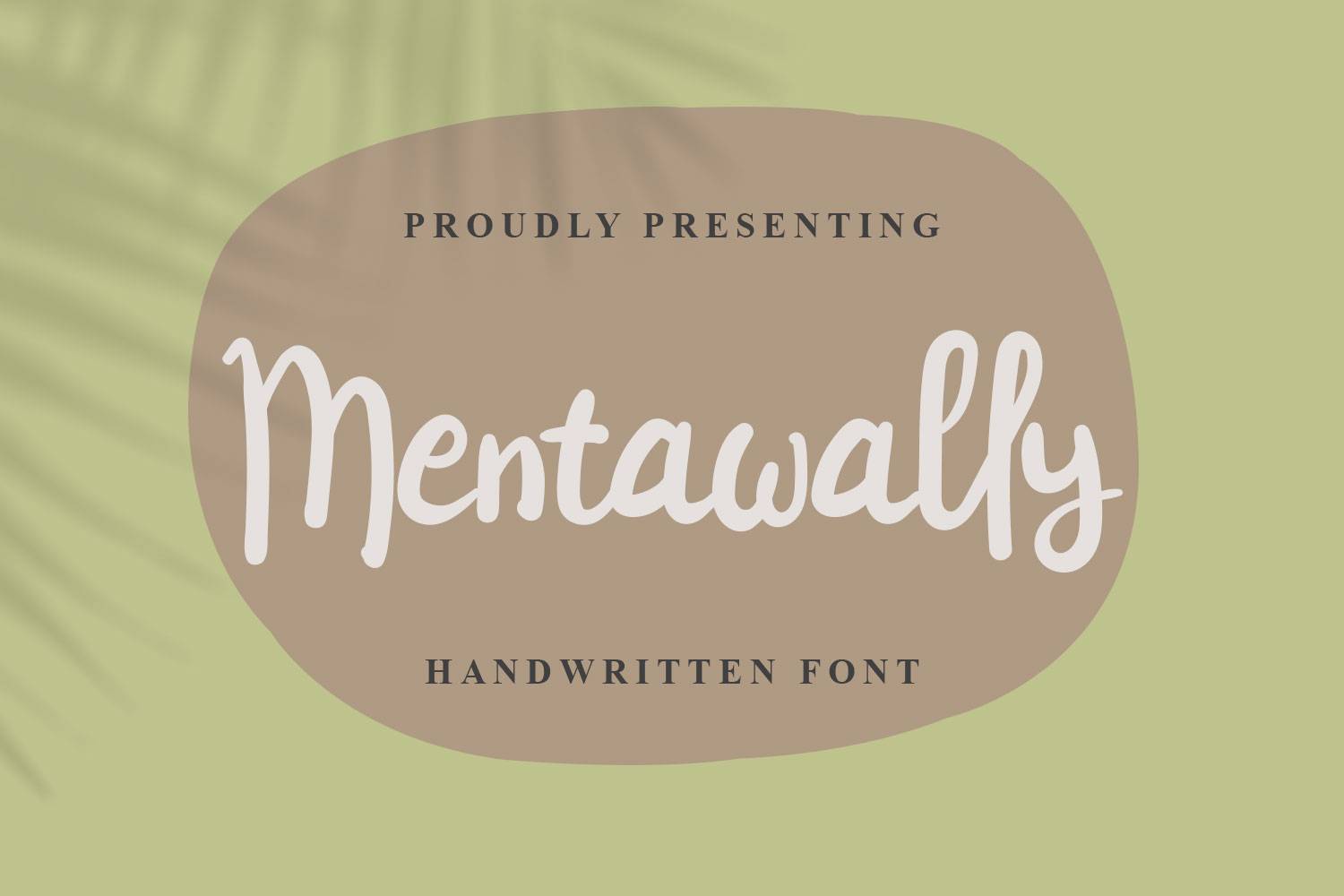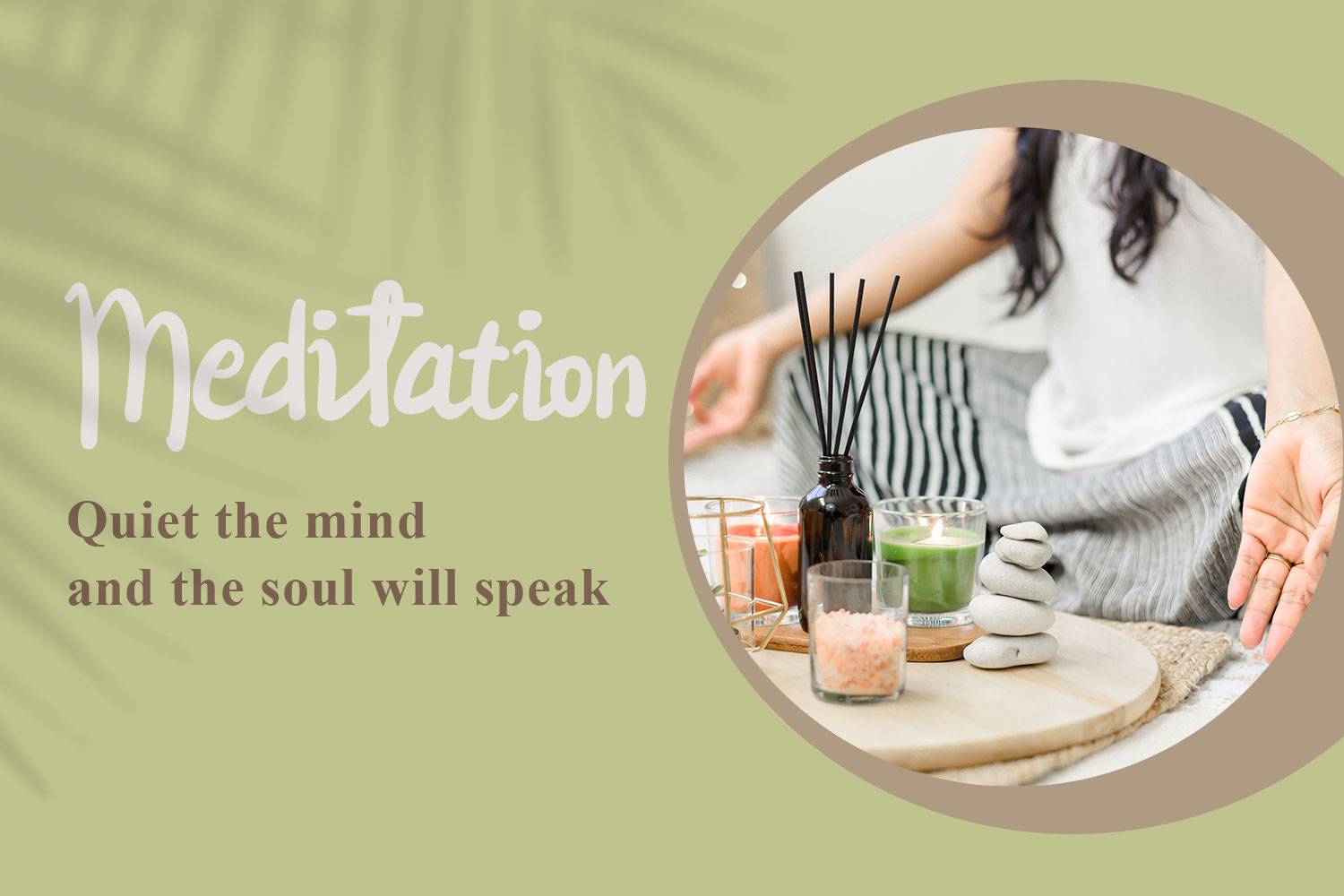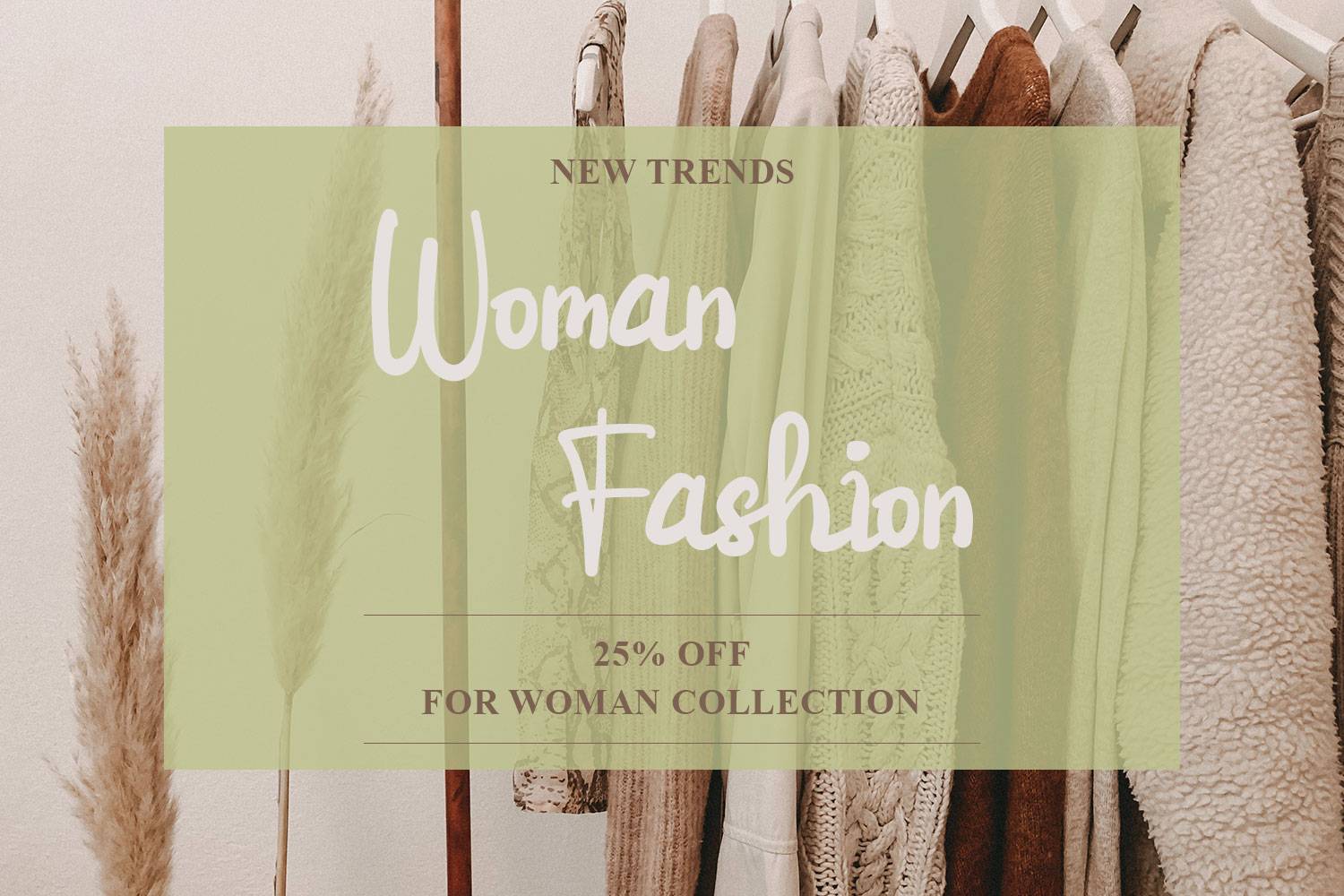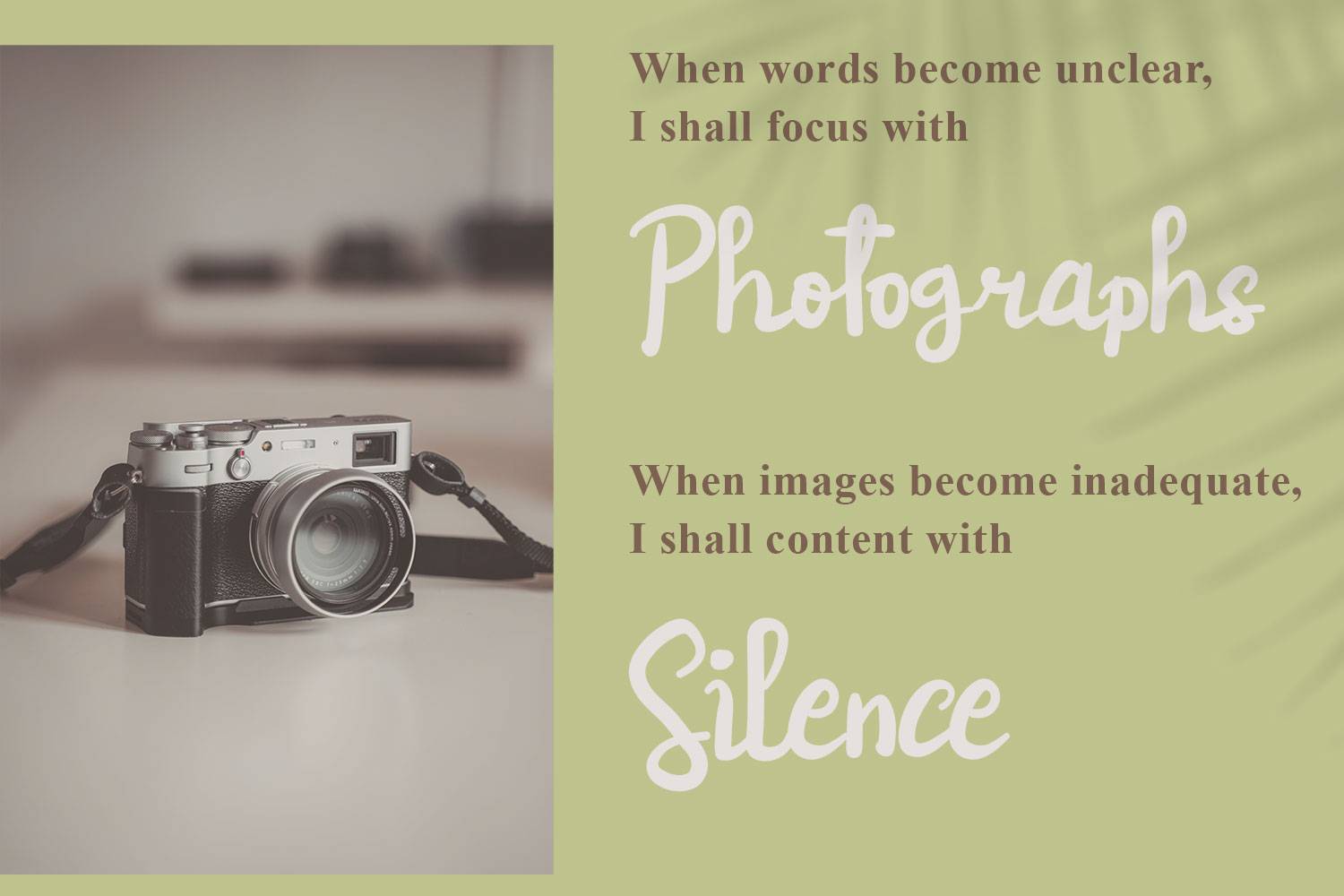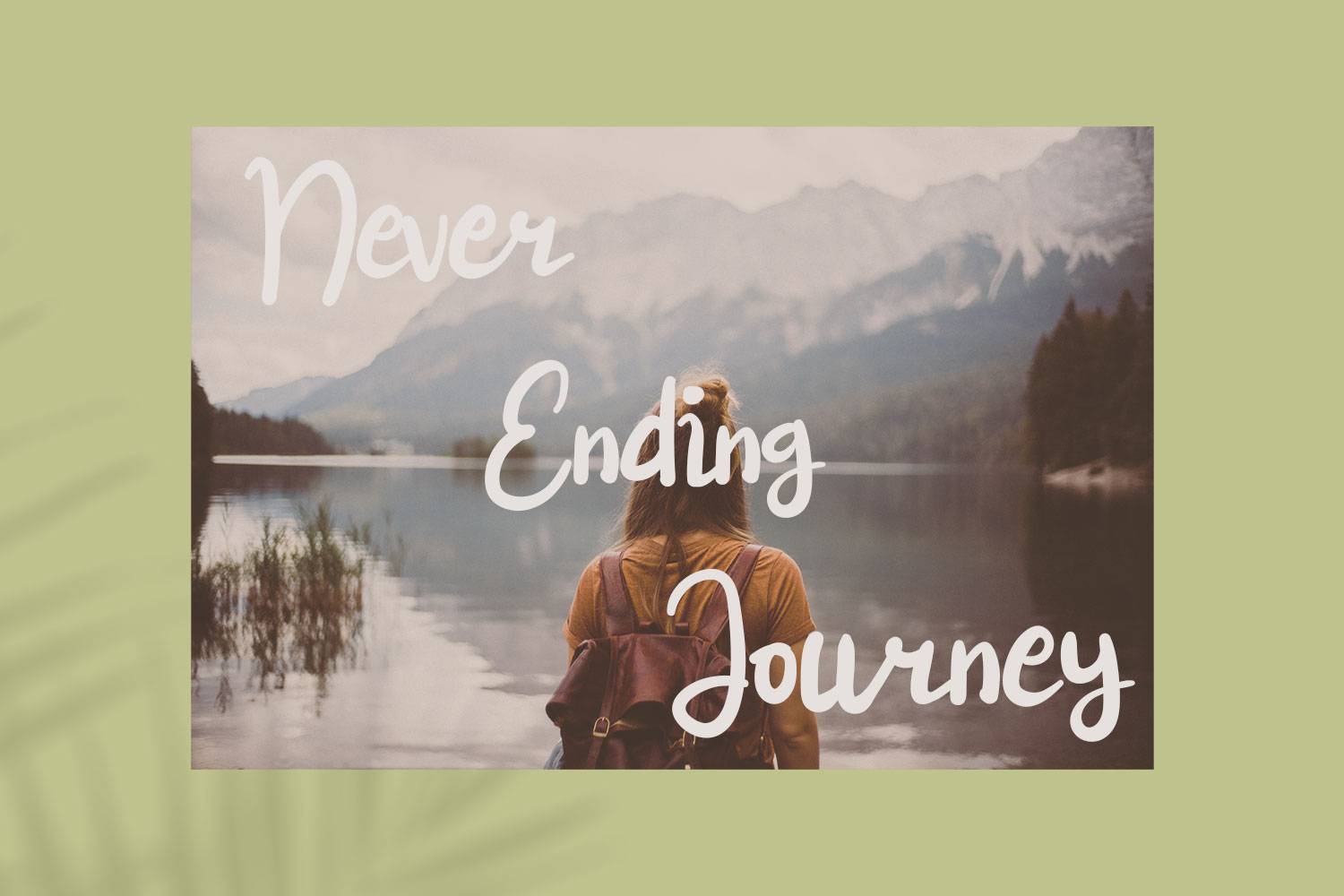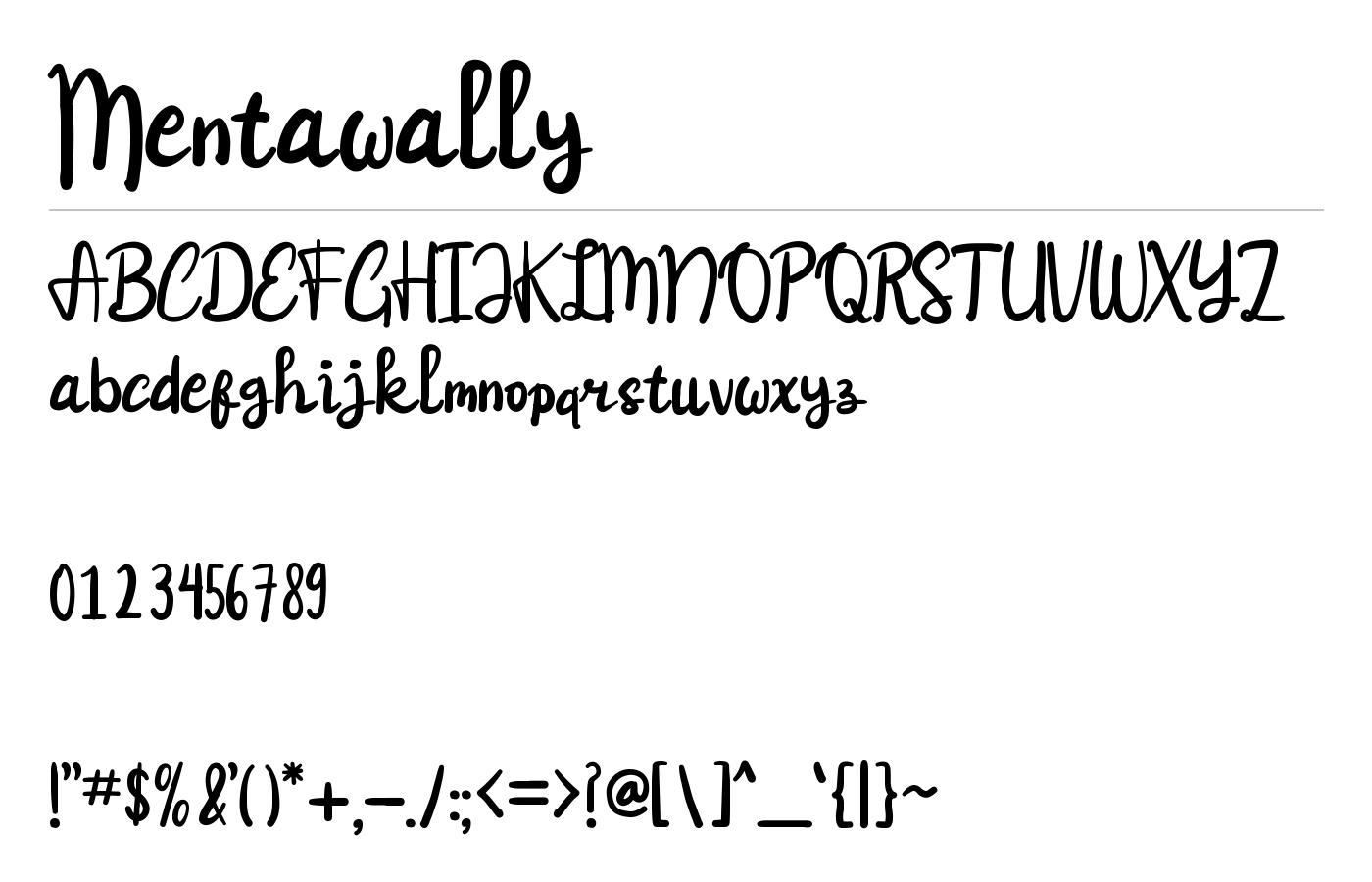
Mentawally is a playful and whimsical handwritten font with a casual, friendly vibe. Its tall, narrow letterforms feature rounded edges and slight irregularities that give it a charming, organic feel, making it ideal for creative projects, kids’ designs, or informal branding where a warm and approachable tone is desired. This font works best in headlines, logos, and packaging that benefit from a personal touch and inviting style.
Mentawally Font
About Mentawally Font